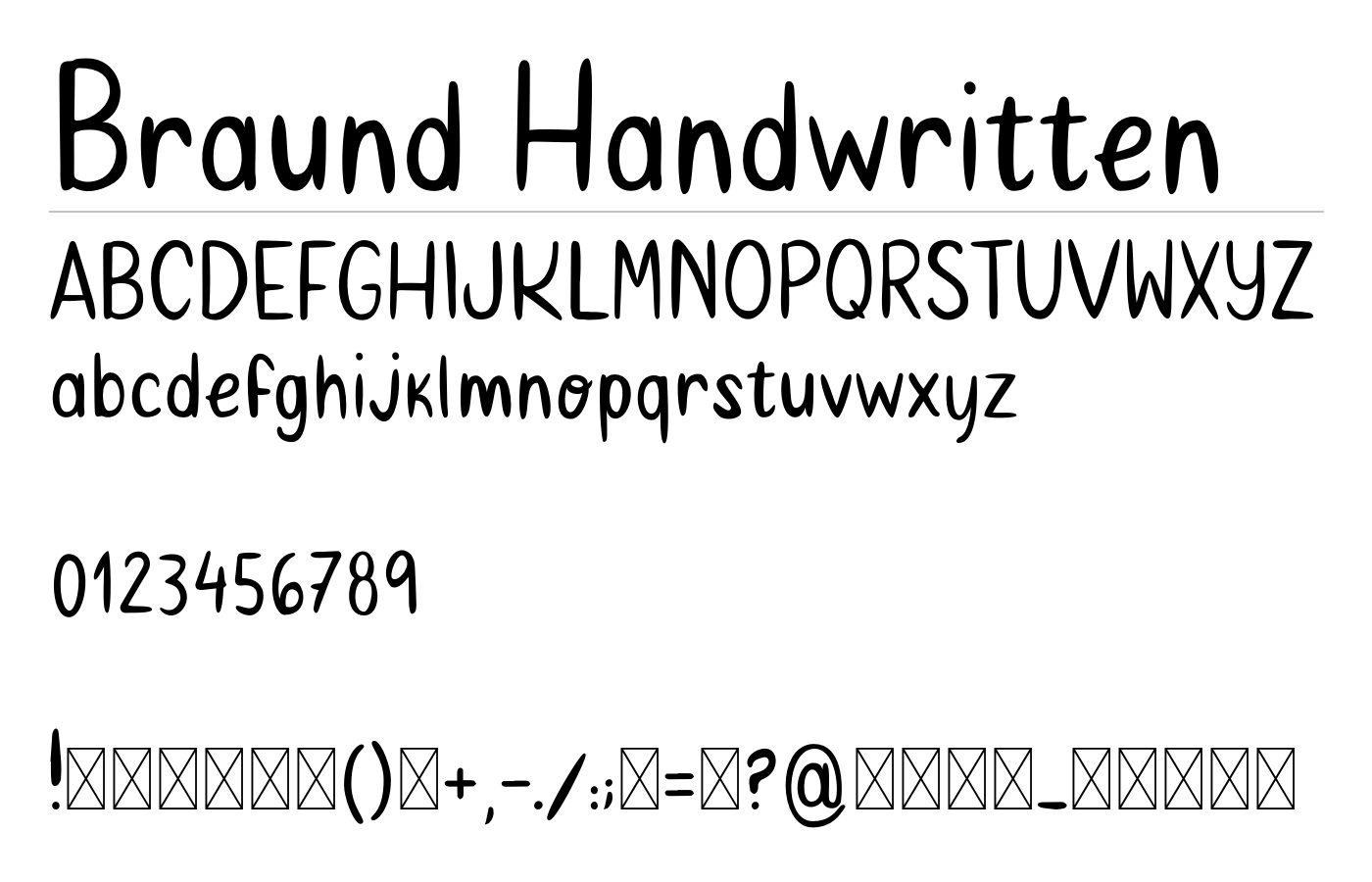
Braund Handwritten is a playful and casual sans serif font that mimics natural handwriting with its rounded, slightly uneven strokes. It features a medium weight and tall x-height, making it readable and friendly, ideal for informal communication, children's projects, or creative branding. This font works well for invitations, logos, social media, and any design seeking a warm, approachable, and personal touch.
Braund Handwritten Font
About Braund Handwritten Font